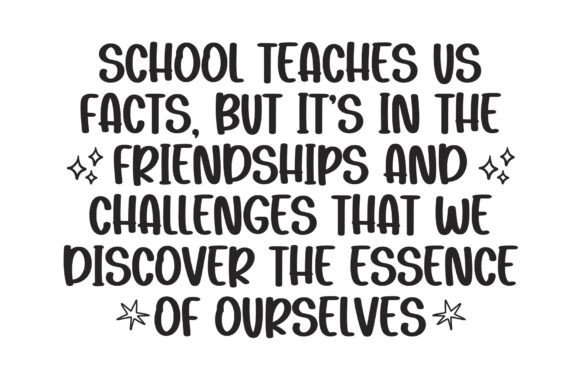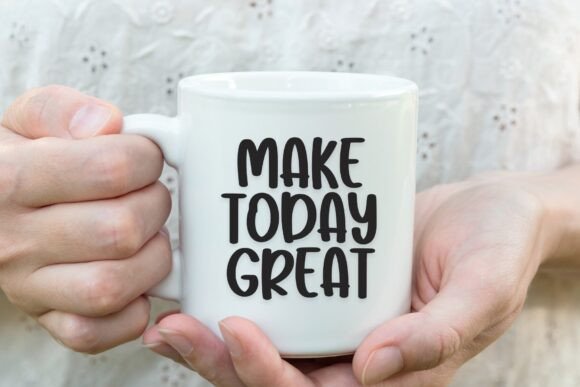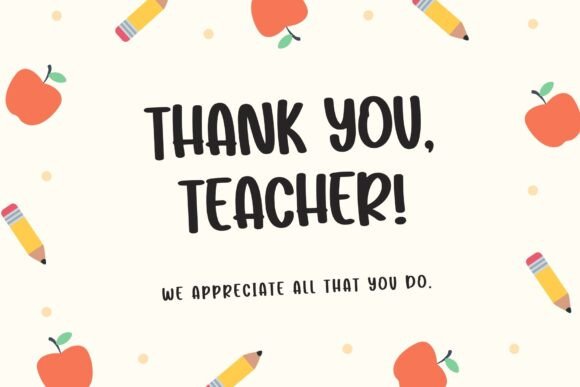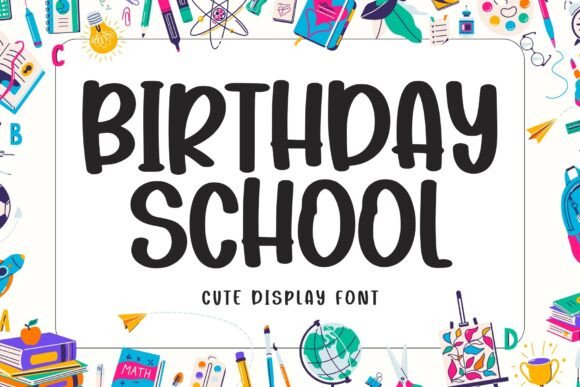
Introducing Birthday School Font: The Cute and Bold Display Font You Need!
Are you tired of using the same old fonts in your designs? Do you want to add a touch of personality and whimsy to your creations? Look no further than the Birthday School Font! This adorable, bold display font is sure to bring your designs to life and make them stand out from the crowd.
What is Birthday School Font?
Birthday School Font is a unique and beautiful font that is perfect for designers, crafters, and anyone looking to add a personal touch to their work. This cute and bold display font is designed to make a statement, with its playful and eye-catching style sure to grab attention.
Why Use Birthday School Font?
So, why should you use Birthday School Font in your designs? Here are just a few reasons:
• Adds Personality: Birthday School Font is the perfect way to add a touch of personality to your designs. Its unique and playful style ensures that your work will stand out from the crowd.
• Versatile: This font is versatile and can be used in a variety of designs, from party invitations and decorations to social media graphics and more.
• Easy to Read: Despite its bold and playful style, Birthday School Font is easy to read, making it perfect for use in titles, headings, and other design elements.
• Customizable: With Birthday School Font, you can customize your designs to fit your unique style and needs.
How to Use Birthday School Font
Using Birthday School Font in your designs is easy! Here are a few tips to get you started:
• Pair with Other Fonts: Pair Birthday School Font with other fonts to create a unique and visually appealing design.
• Use in Titles and Headings: Use Birthday School Font in titles and headings to add a touch of personality and make your designs stand out.
• Add to Party Invitations: Add Birthday School Font to your party invitations and decorations to create a fun and festive atmosphere.
• Experiment with Colors: Experiment with different colors and textures to really make your designs pop.
Still not sure how to use Birthday School Font in your designs? Here are a few ideas to get you started:
• Party Invitations: Create custom party invitations that set the tone for a fun and festive celebration.
• Social Media Graphics: Use Birthday School Font in your social media graphics to add a touch of personality and make your posts stand out.
• DIY Crafts: Add Birthday School Font to your DIY crafts, such as party decorations, gift tags, and more.
• Branding and Packaging: Use Birthday School Font in your branding and packaging to create a unique and memorable identity.
In conclusion, Birthday School Font is a cute, bold display font that is sure to bring your designs to life. With its unique and beautiful style, this font is perfect for designers, crafters, and anyone looking to add a personal touch to their work. So why wait? Get inspired by Birthday School Font and add it to your favorite designs today!